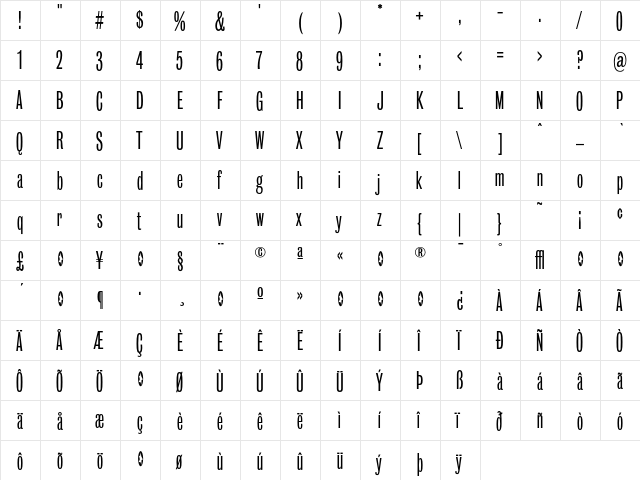
BureauGrotesque OneOne
Design Context for BureauGrotesque Typeface
BureauGrotesque channels digital-age aesthetics through its sharp, structured letterforms — ideal for brands that want to signal innovation.
Pro Tip: Use BureauGrotesque in combination with a neutral sans for body text. Let it define the brand voice in headlines while keeping reading comfortable elsewhere.